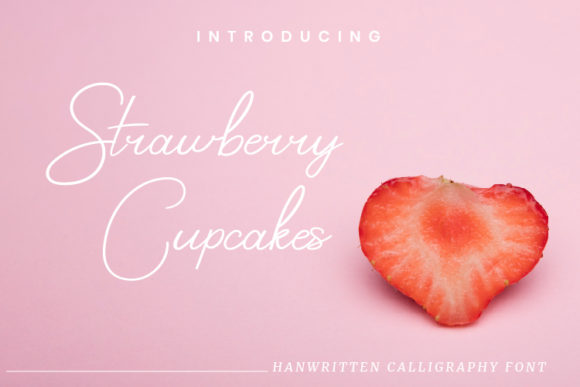
Dive into the world of Strawberry Cupcakes Font, a hand-crafted script typeface brimming with charm and playfulness. Each letter dances across the page like a sugary treat, leaving behind a trail of delight.
From the whimsical swirls of its lowercase letters to the elegant flourishes of its capitals, Strawberry Cupcakes Font is a feast for the eyes. It's the perfect choice for adding a touch of sweetness to your designs, whether you're creating enchanting wedding invitations, heartfelt thank you cards, or captivating logos.
This modern script font exudes versatility, adapting seamlessly to any project that calls for a touch of personalization. Its playful nature lends itself beautifully to the world of weddings, where it can transform invitations and stationery into cherished keepsakes.
Embrace the allure of Strawberry Cupcakes Font and let its sugary charm elevate your designs to new heights. It's the perfect font for adding a sprinkle of whimsy and a dash of elegance, making your creations impossible to resist. Unleash your creativity and let Strawberry Cupcakes Font become the sweet ingredient that brings your designs to life.